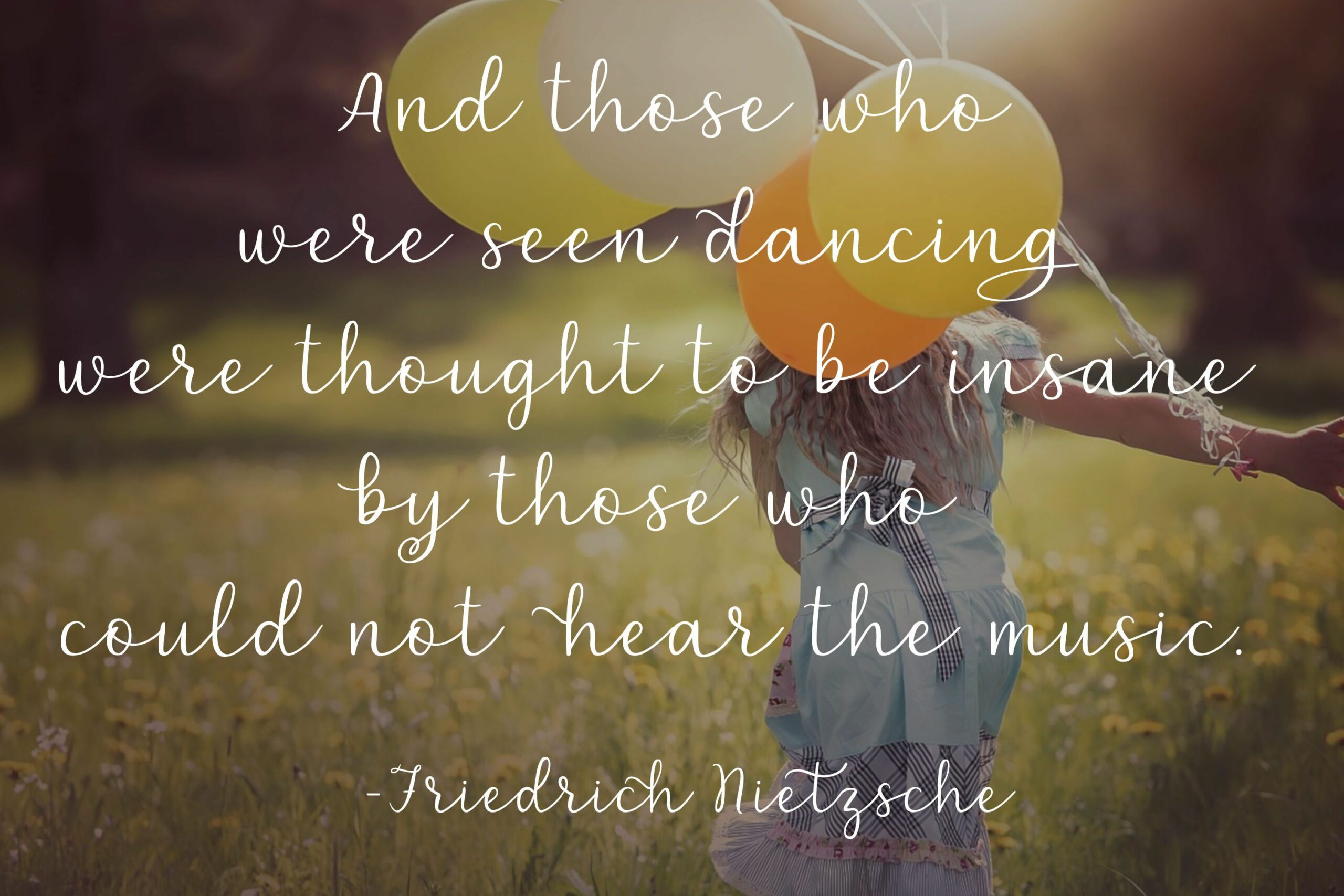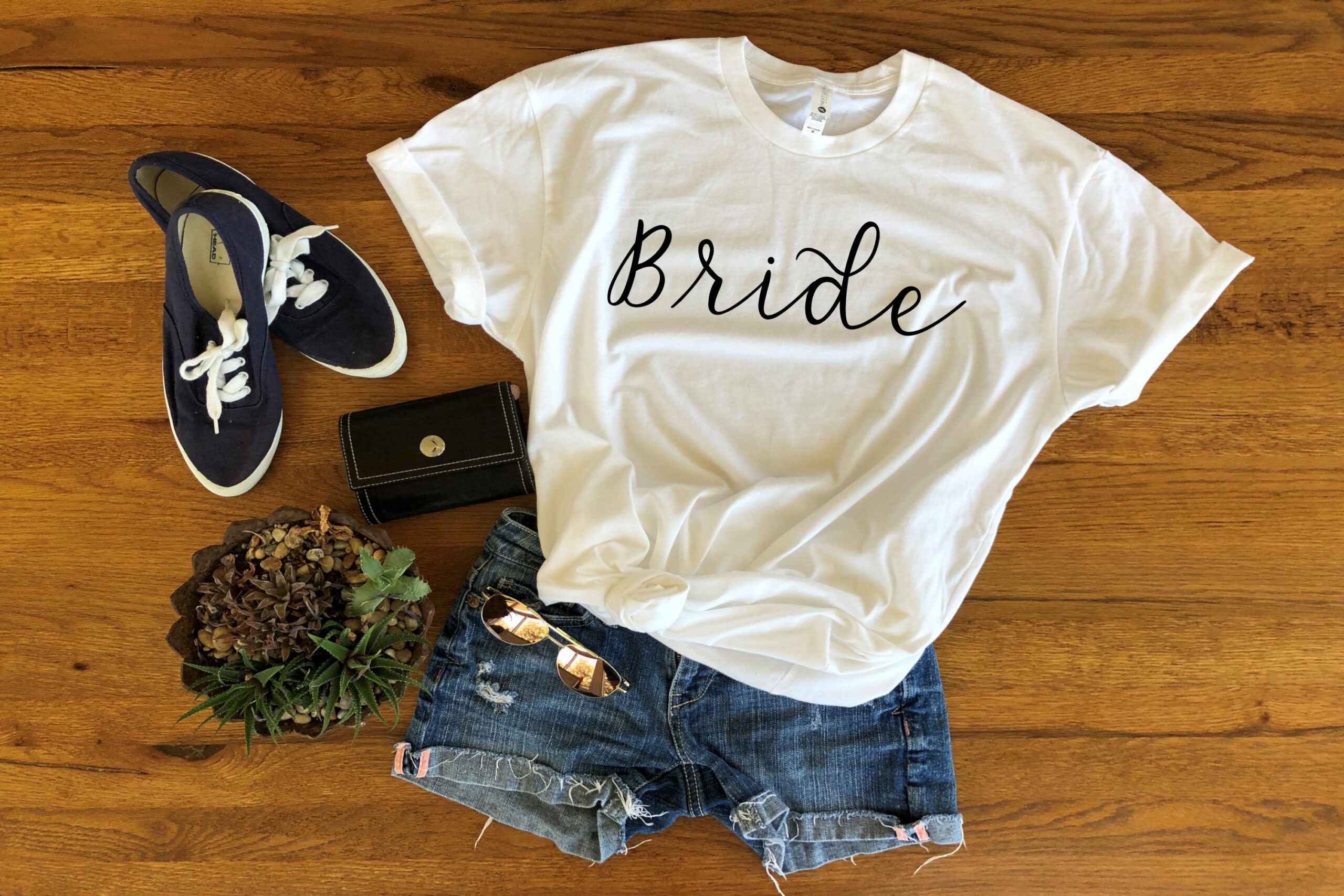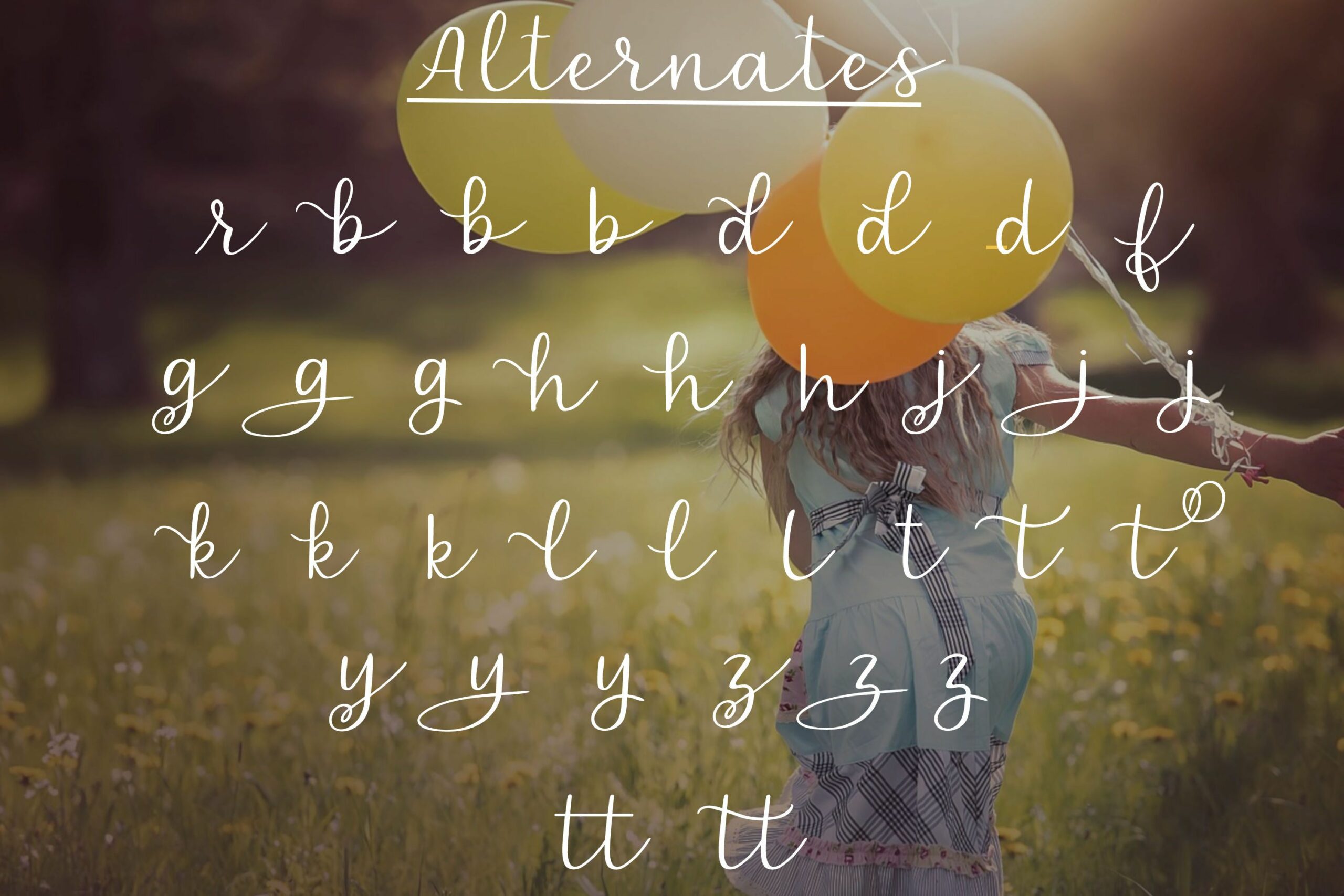
About Carefree – A handlettered script font
Carefree (formerly Free Spirit) is a handlettered script font made up of capital letters A-Z, lowercase letters a-z, alternates, numbers 0-9 and punctuation. Carefree is great for cards, invitations, scrapbooking, SVG design, and more! This font can be used for personal or commercial projects. File Type: otf Download the otf file for all available features Not recommended for very small cutting projects because of thin lines.